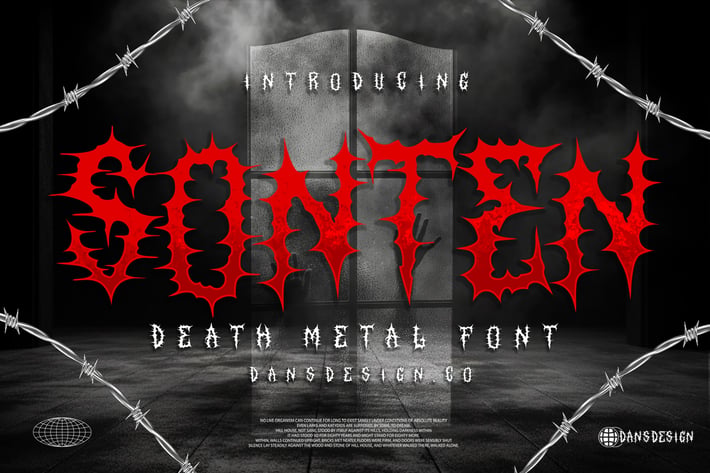
SONTEN Modern Blackletter Metal Horror Font
SONTEN Modern Blackletter Metal Horror Font is a distinct, highly detailed, and Horror Metal Font font. It would make a great choice for exquisite Music, Poster, retro-urban designs, tattoo business branding, logos, vintage designs, and more.